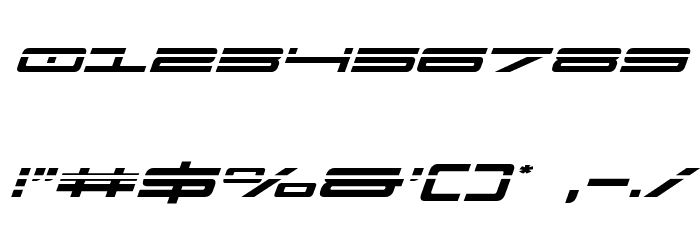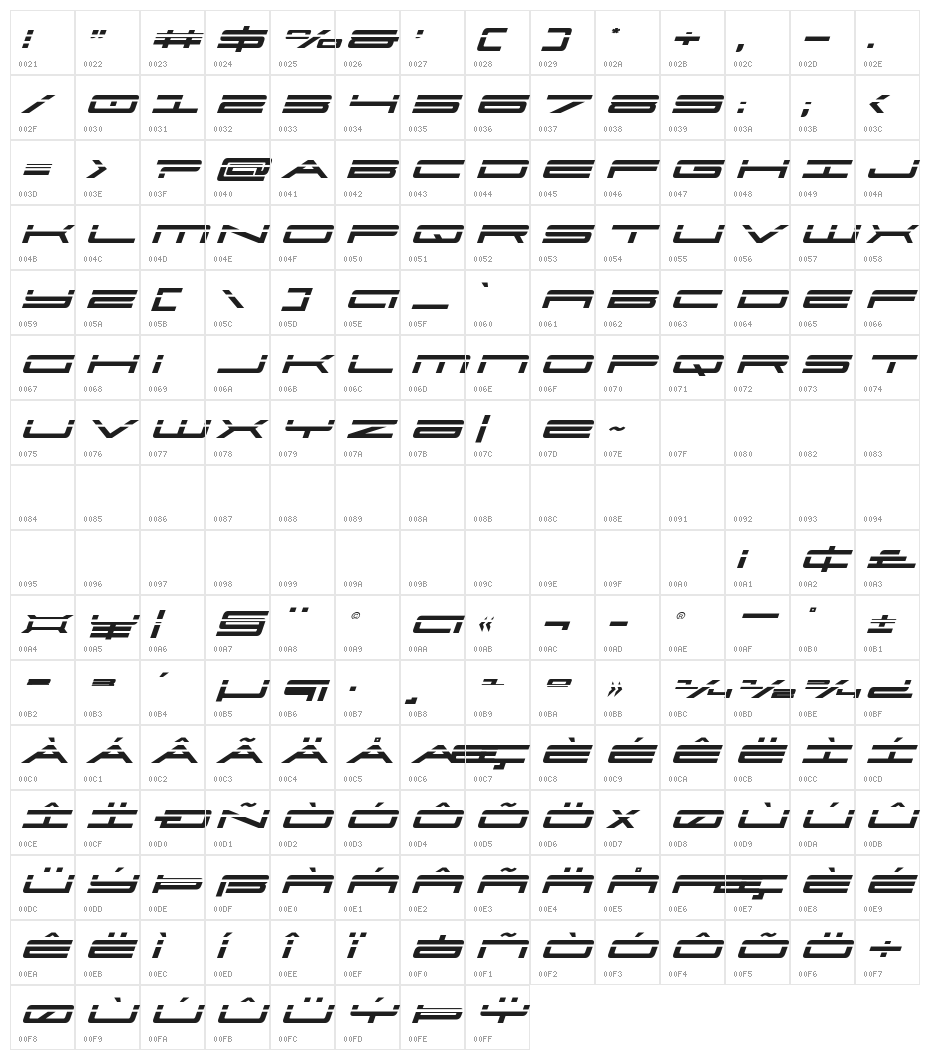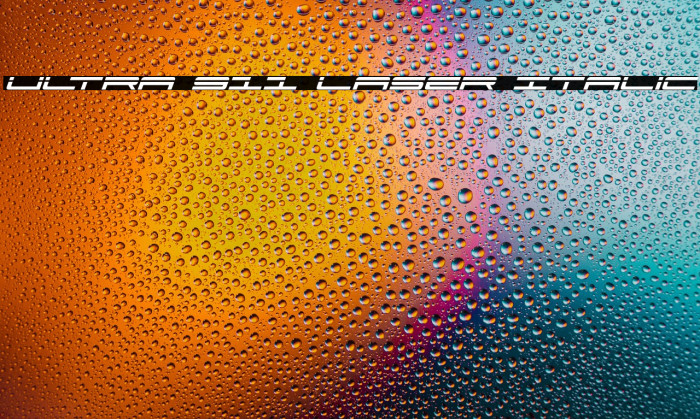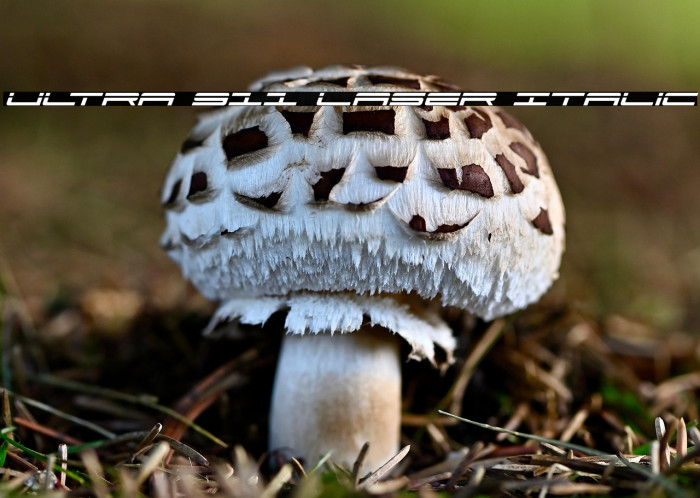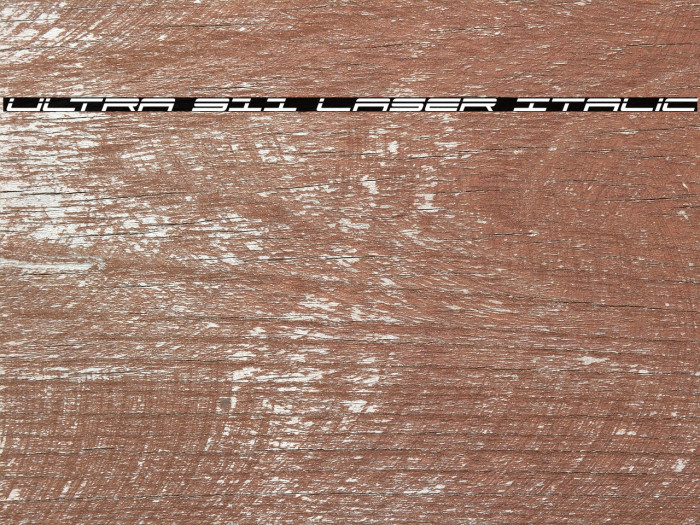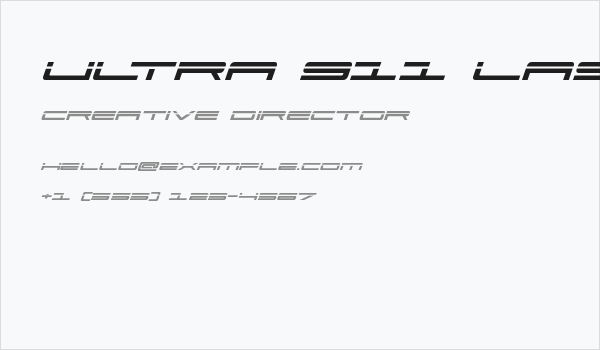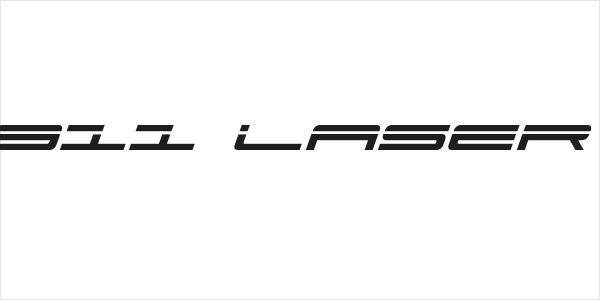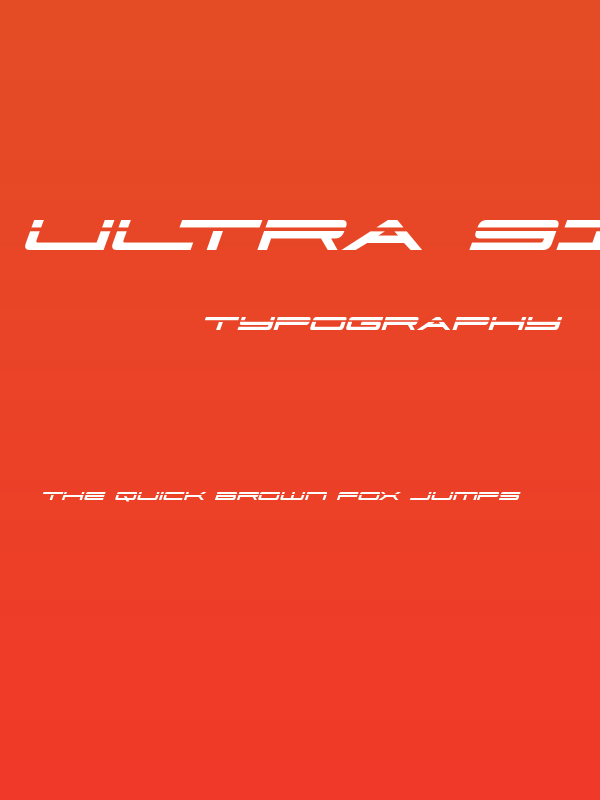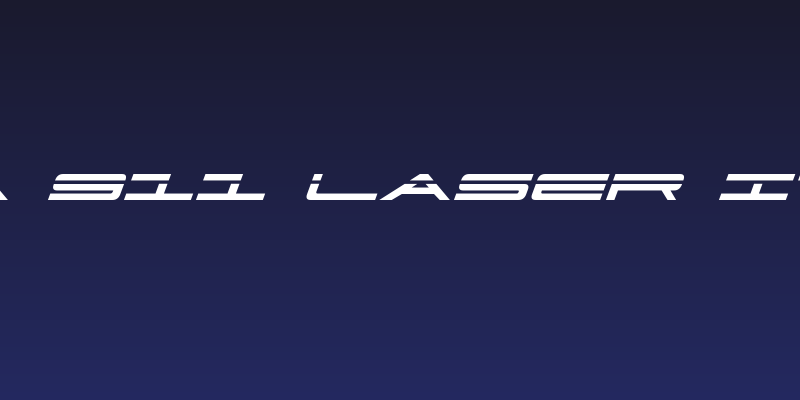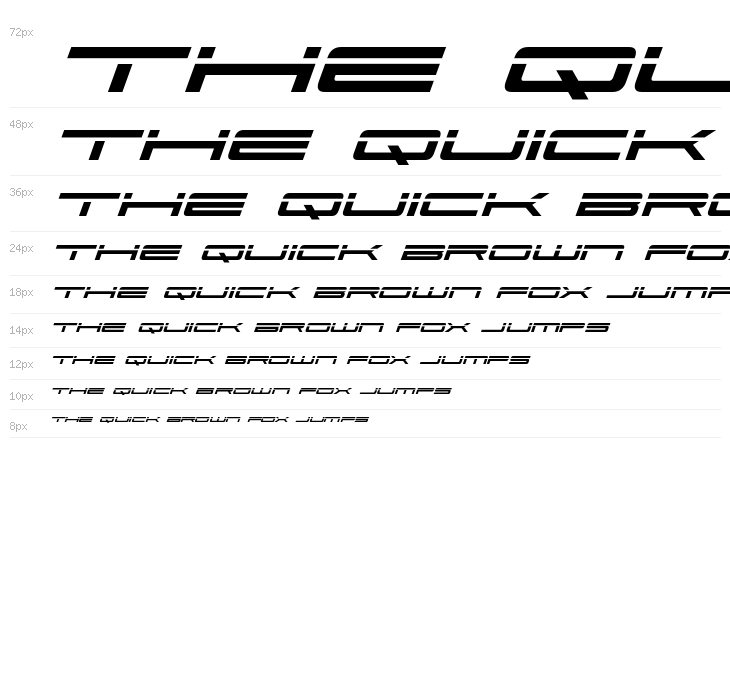
Ultra 911 Laser Italic Font
Ultra 911 Laser Italic Description
This font features a futuristic and sleek design with sharp, angular lines and a distinct italic slant. The characters are constructed with a geometric precision, giving them a modern and dynamic appearance. The uppercase and lowercase letters maintain a consistent style, with unique cutouts and angles that enhance the font's high-tech aesthetic. The numerals and special characters follow the same design principles, ensuring uniformity across all glyphs. This font's bold and striking look makes it ideal for projects that require a contemporary and edgy feel.
| Proposed Projects | Ideal for technology branding, sci-fi movie posters, video game titles, and modern logo designs. |